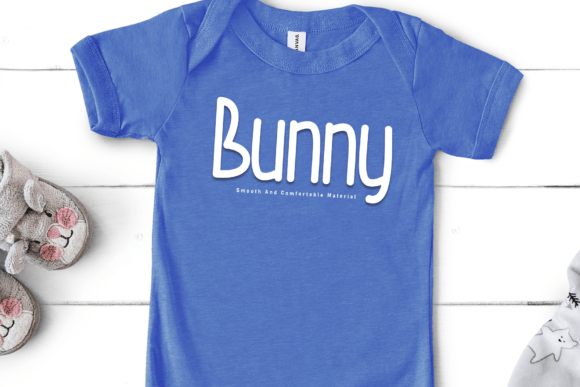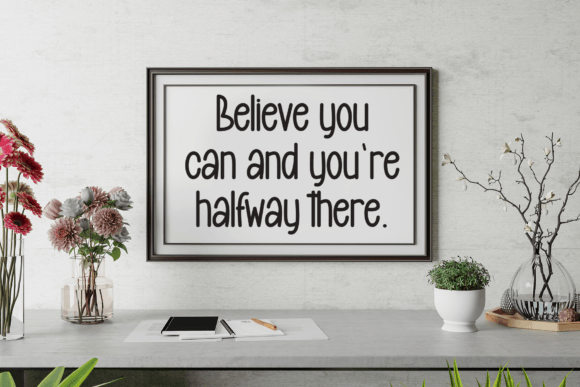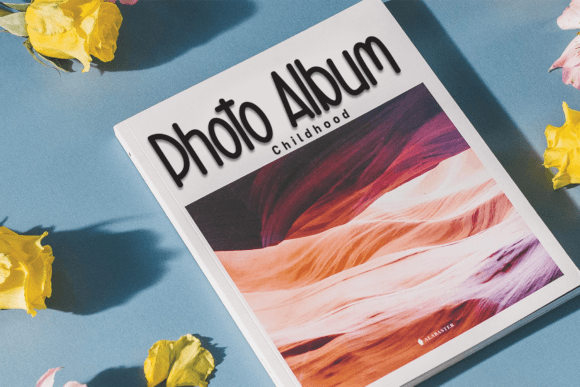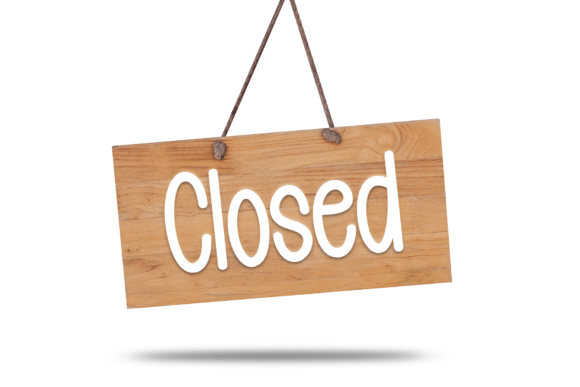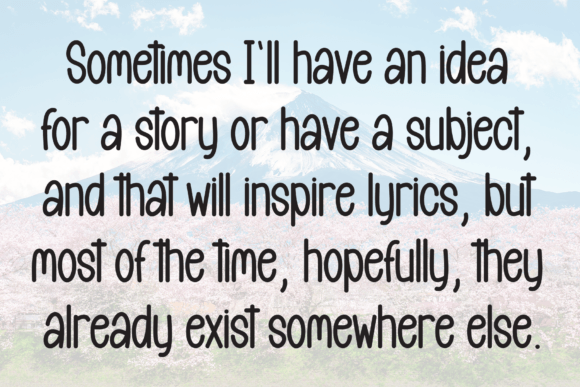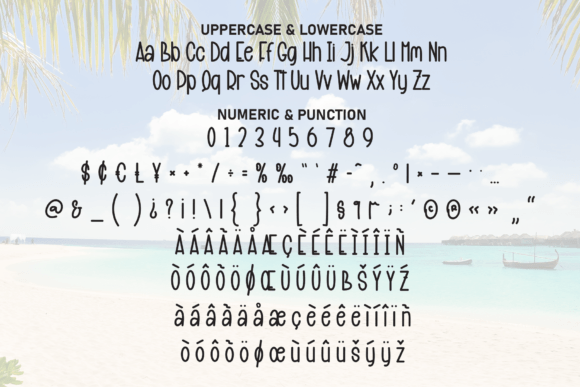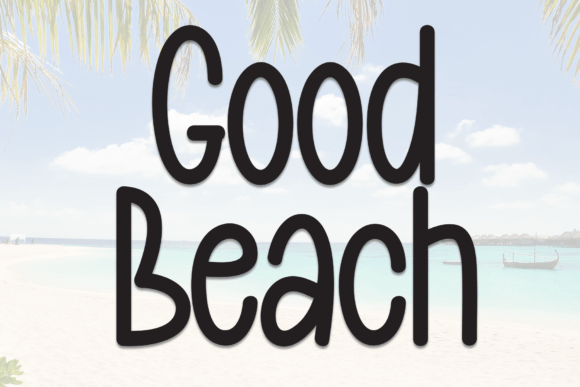
Introducing Good Beach Font: The Perfect Addition to Your Design Toolbox
Are you tired of using the same old fonts in your designs? Do you want to add a touch of fun and playfulness to your projects? Look no further than Good Beach Font, a bold and playful handwritten font that’s perfect for giving your designs a fresh and casual vibe.
What is Good Beach Font?
Good Beach Font is a handwritten font that looks like it was written with a marker. It’s a bold and playful font that’s reminiscent of a day at the beach. With its fun and relaxed style, it’s perfect for designers and crafters who want to add a touch of whimsy to their projects.
Characteristics of Good Beach Font
• Bold and Playful: Good Beach Font is a bold and playful font that’s perfect for making a statement.
• Handwritten Style: The font has a handwritten style that looks like it was written with a marker.
• Fun and Relaxed: The font has a fun and relaxed style that’s perfect for giving your designs a fresh and casual vibe.
Uses for Good Beach Font
Good Beach Font is perfect for a variety of design projects, including:
• Beach-themed designs: Whether you’re creating a logo for a beach-themed business or designing a sign for a beachside event, Good Beach Font is the perfect choice.
• Crafting projects: If you’re a crafter, Good Beach Font is a great addition to your design toolbox. Use it to create signs, labels, and other embellishments for your projects.
• Social media graphics: Good Beach Font is perfect for creating fun and engaging social media graphics, such as Instagram posts and Facebook graphics.
• Party decorations: Use Good Beach Font to create fun and playful party decorations, such as banners and signs.
Why Choose Good Beach Font?
There are many fonts to choose from, but Good Beach Font stands out from the crowd. Here are just a few reasons why:
• Unique style: Good Beach Font has a unique style that’s unlike any other font out there.
• Easily readable: Despite its playful style, Good Beach Font is easily readable, even at small sizes.
• Versatile: Good Beach Font can be used for a wide range of design projects, from beach-themed designs to crafting projects.
Tips for Using Good Beach Font
Here are a few tips for using Good Beach Font in your designs:
• Use it sparingly: Good Beach Font is a bold font, so use it sparingly to avoid overwhelming your design.
• Pair it with other fonts: Good Beach Font pairs well with other fonts, such as sans-serif fonts and script fonts.
• Experiment with colors: Good Beach Font looks great in a variety of colors, from bright and bold to pastel and soft.
Good Beach Font is a bold and playful handwritten font that’s perfect for giving your designs a fresh and casual vibe. With its fun and relaxed style, it’s perfect for designers and crafters who want to add a touch of whimsy to their projects. Whether you’re creating beach-themed designs, crafting projects, or social media graphics, Good Beach Font is a great addition to your design toolbox.